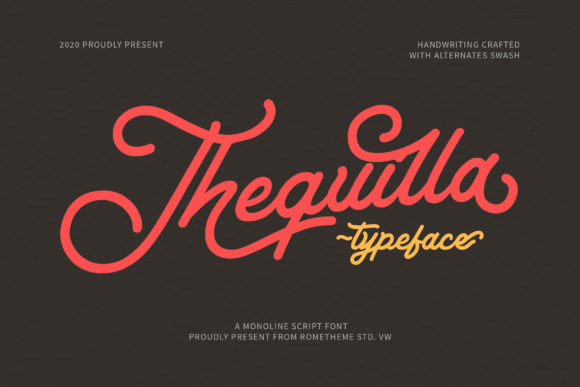
Journey into the realm of typography with Thequilla Font, a captivating script font family that breathes life into your designs. Its enchanting handwritten style, meticulously crafted by rometheme, brings a touch of elegance and artistry to every project you undertake. Thequilla Font is the ultimate choice for those seeking distinctive logos, alluring branding, and heartfelt quotes that resonate with your audience.
Within the intricate curves and flourishes of Thequilla Font lies a universe of creative possibilities. Each letter, imbued with a unique personality, dances across the page, evoking emotions and captivating the imagination. Let your creativity soar as you explore the boundless potential of this versatile font, transforming your designs into masterpieces that leave an indelible mark.
Thequilla Font's delicate strokes and graceful lines lend themselves effortlessly to a wide array of design projects. Whether you're crafting logos that exude sophistication, developing branding that radiates charm, or creating quotes that touch the heart, Thequilla Font amplifies your message with its timeless allure.
Immerse yourself in the beauty of Thequilla Font and unlock a world of creative expression. Its small print capabilities make it ideal for intricate designs, allowing you to convey your ideas with precision and clarity. Every word, every phrase, every message you create with Thequilla Font carries a touch of magic, captivating your audience and leaving them spellbound.
Unleash the power of Thequilla Font today and embark on a creative journey that knows no bounds. Let your imagination flourish as you craft designs that captivate, inspire, and leave a lasting impression. Thequilla Font is more than just a font; it's an invitation to explore the depths of your creativity and bring your visions to life.